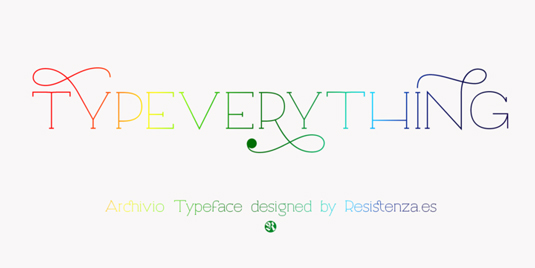
Font of the day: Archivio
Every day we showcase the best fonts on the web. Today it's Archivio from Resistenza.
Archivio from Resistenza
A neutral font family, Archivio is based on the sans-serif typefaces of the early 20th century. Created by the team at Resistenza, its geometric letter forms are combined with some humanist touches to create a clear and legible typeface.